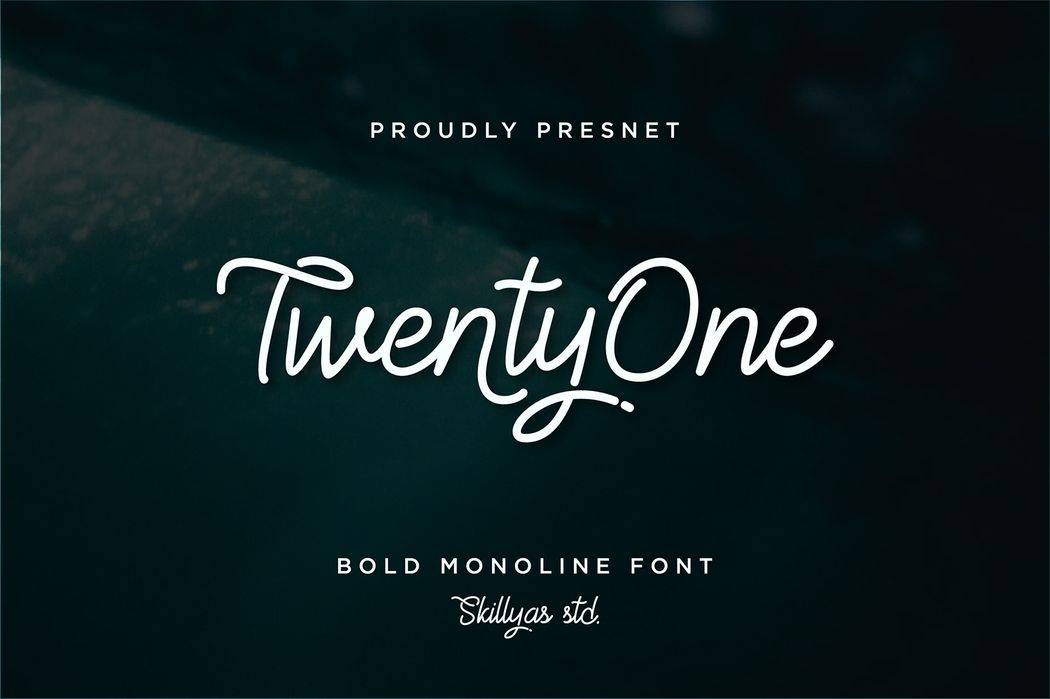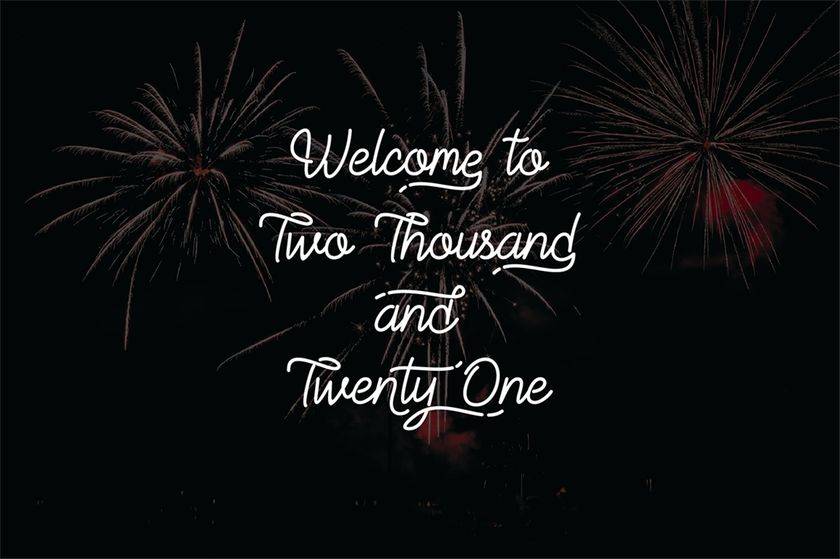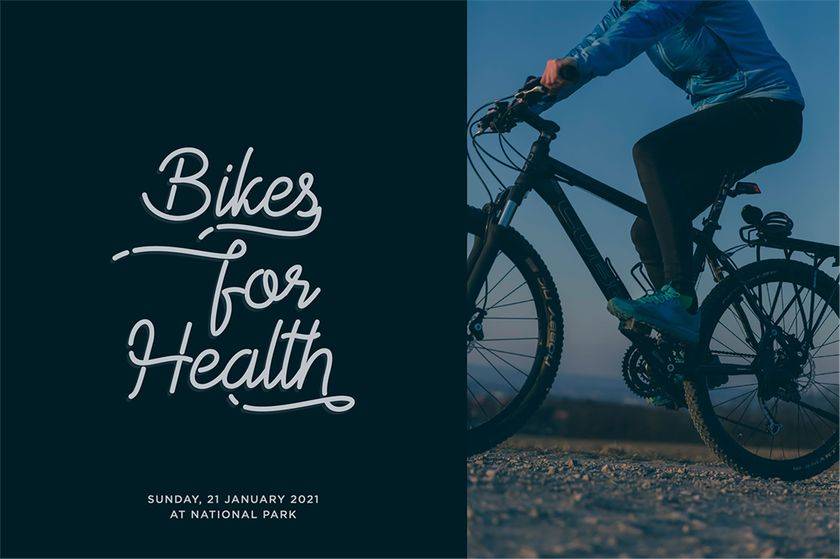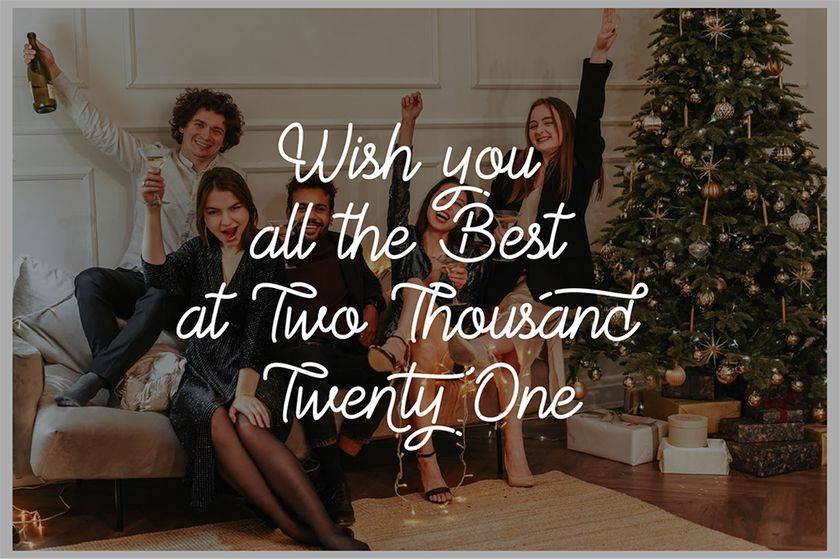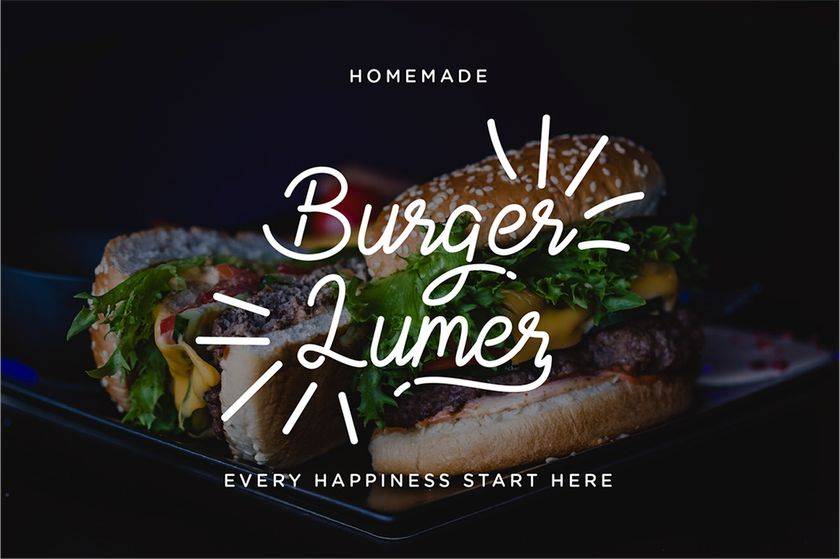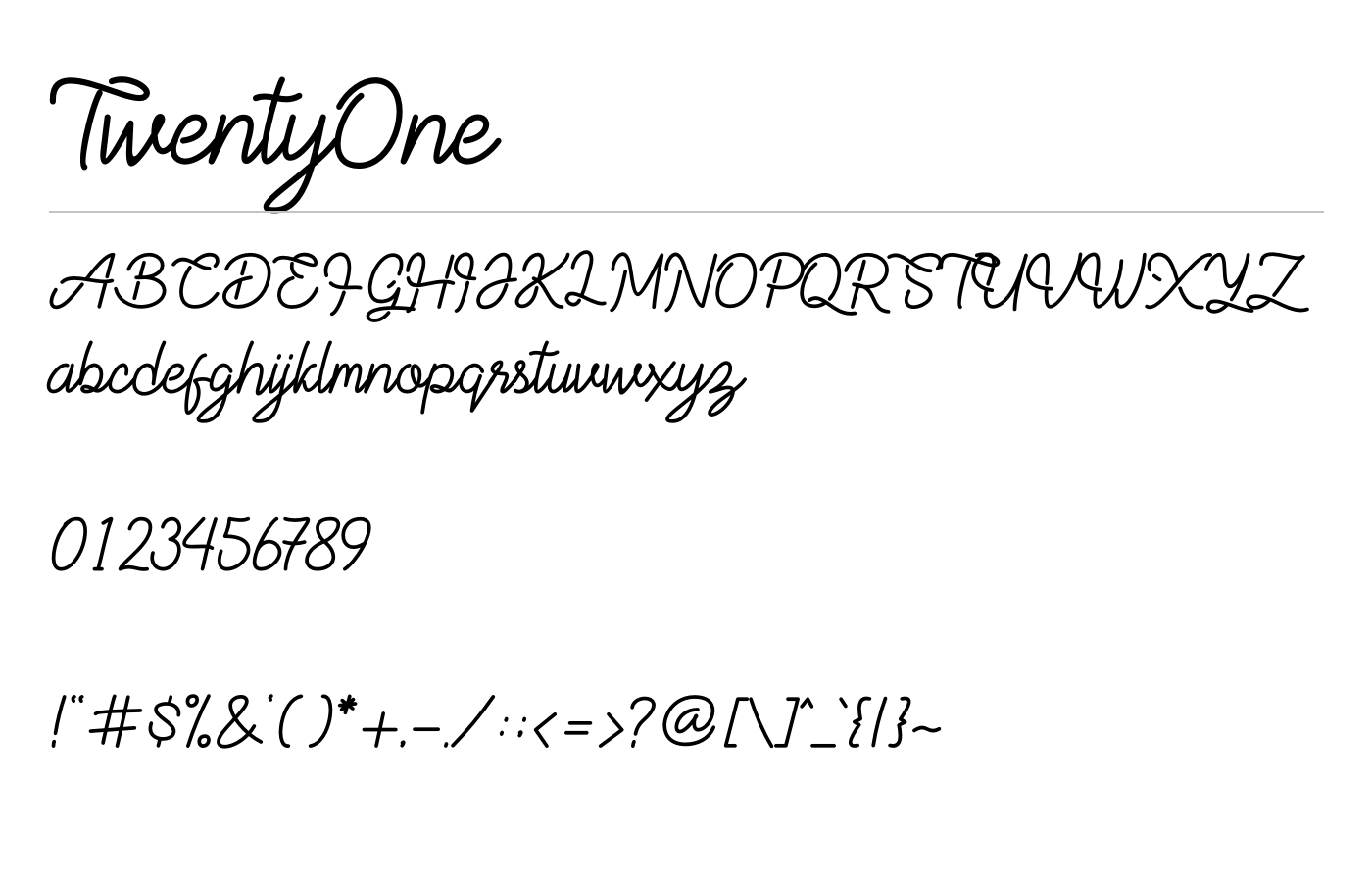
TwentyOne is a sleek and elegant script font with a handwritten feel, featuring smooth, flowing lines and consistent, medium-light weight strokes. Its stylish uppercase and lowercase letters exhibit a refined, modern charm with subtle calligraphic touches, making it ideal for creative branding, invitations, and sophisticated editorial design. This font works well where a personal yet polished look is desired, combining readability with graceful flair.
TwentyOne Font
About TwentyOne Font
| Font family | TwentyOne Font |
| Designer | ahmad faizin |